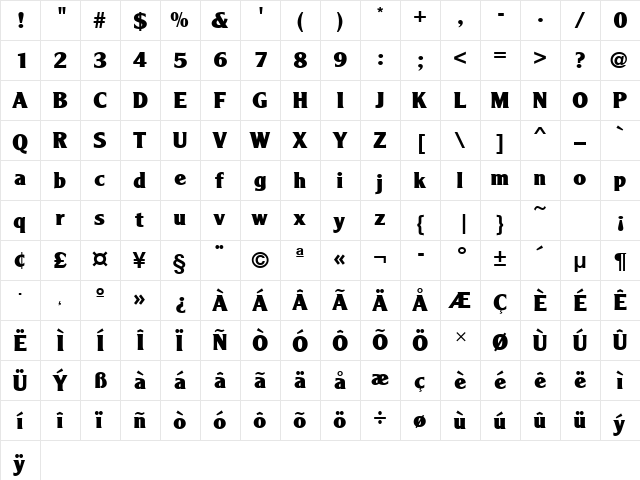
AgendaURWTExt Regular Font Preview
AgendaURWTExt Regular
Design Context for AgendaURWTExt Typeface
AgendaURWTExt offers clean, dependable letterforms without strong stylistic allegiance, making it a practical choice for designers who need flexibility.